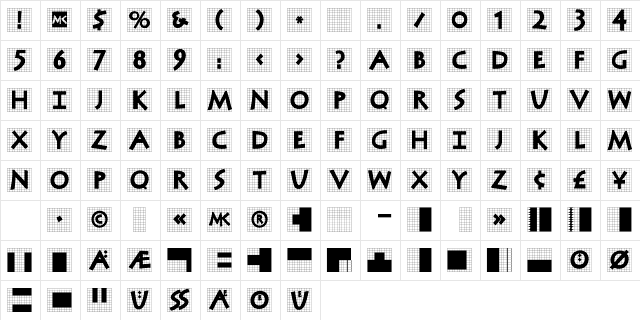
AntiquaInGrid Regular
Design Context for AntiquaInGrid Typeface
AntiquaInGrid offers clean, dependable letterforms without strong stylistic allegiance, making it a practical choice for designers who need flexibility.